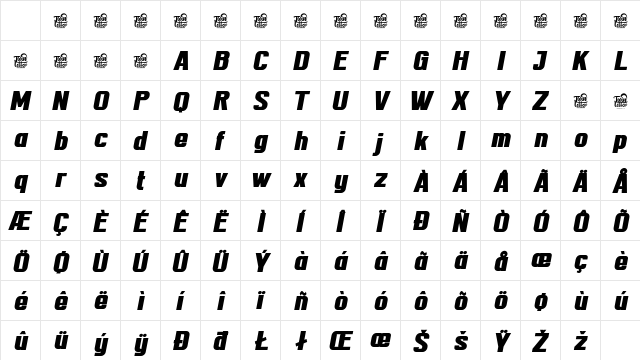
TEKROT Regular Slant is a composed and adaptable typeface that performs quietly and consistently across a wide range of design contexts.
Pro Tip: Use TEKROT Regular Slant in both headline and body roles to test its range before committing to a single application.